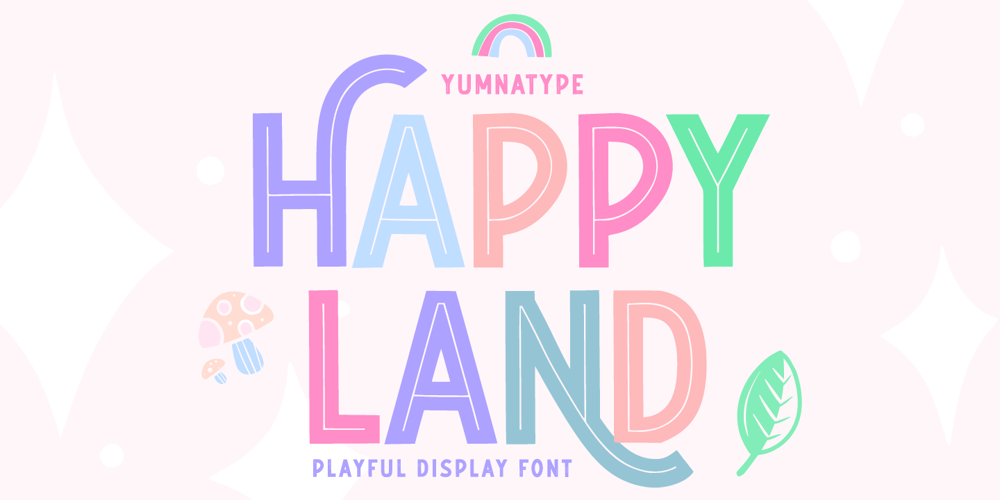
Happy Land Font Family was designed by Donis Miftahudin and published by Yumna Type. Happy Land contains 2 styles and family package options. It can be a real challenge to deliver messages through designs due to the very ordinary display fonts lacking prominent characters. Let us present you the Happy Land, a prominent display font to add firm touches to any of your designs. The letters made all in capital can enhance certain effects on your designs. The font’s simple shapes with strong contrasts affect the legibility. As a result, it is suitable to apply for big text sizes. In addition, this font provides a clipart bonus for you. Enjoy the available features available here.Features: Stylistic Sets Multilingual Supports PUA Encoded Numerals and Punctuations Happy Land fits best for various design projects, such as brandings, posters, banners, headings, magazine covers, quotes, printed products, merchandise, social media, etc. Find out more ways to use this font by taking a look at the font preview.Thanks for purchasing our fonts. Hopefully, you have a great time using our font. Feel free to contact us anytime for further information or when you have trouble with the font. Thanks a lot and happy designing.